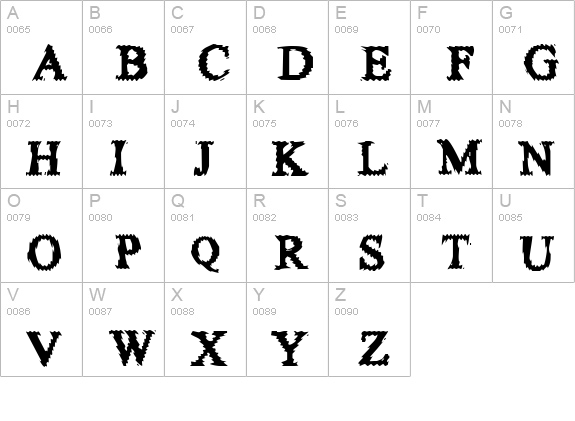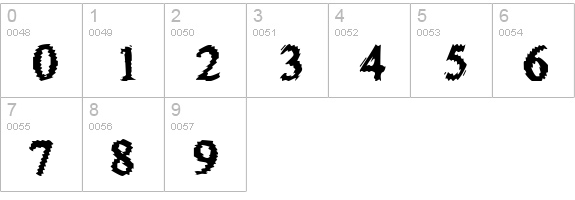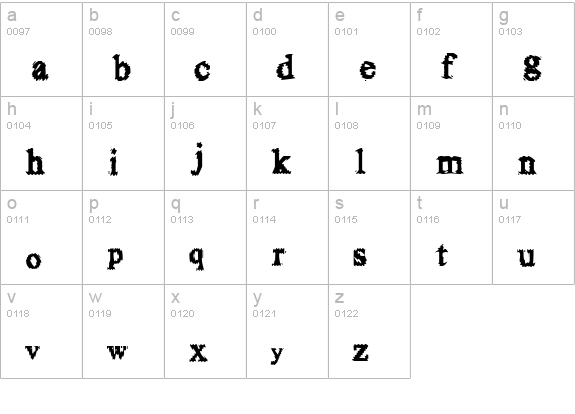
FuzzySock Font Details
Introducing FuzzySock font, a charming and whimsical typeface that exudes a playful and cozy vibe. This unique font features soft and fuzzy edges, giving it a warm and inviting appearance. Perfect for adding a touch of fun to your design projects, FuzzySock font is sure to delight and captivate your audience. What makes FuzzySock font even more appealing is that it is available for free download at FontsMarket.com. Yes, you read that right - this delightful font can be yours at no cost! Whether you're working on a creative project, designing invitations, or simply looking to add a touch of personality to your work, FuzzySock font is the perfect choice. Download it now and let your creativity run wild with this charming and free typeface!